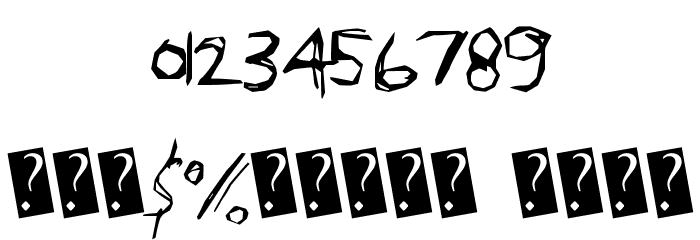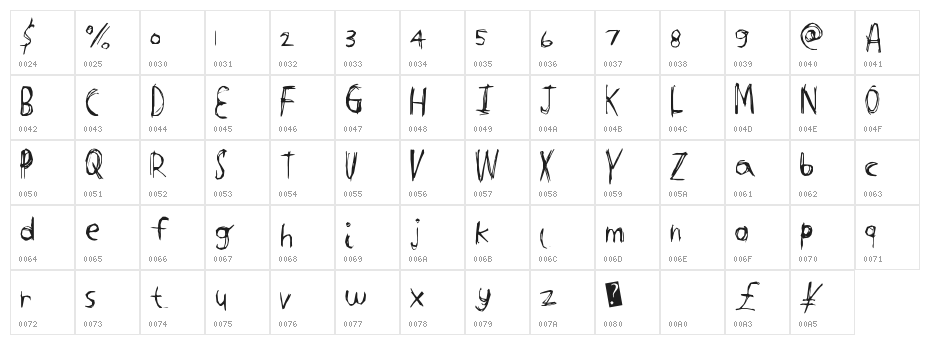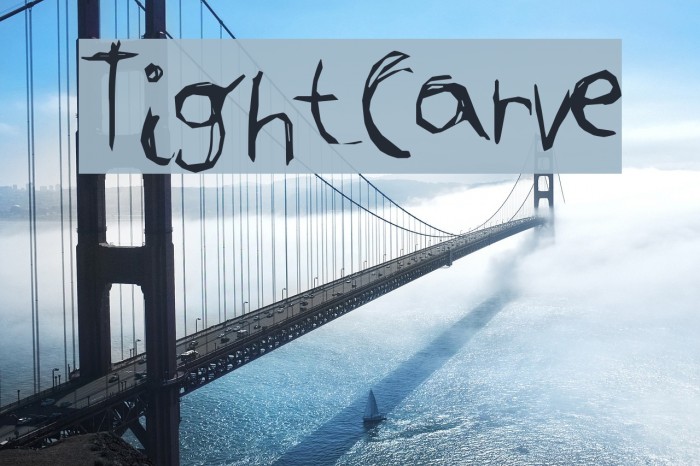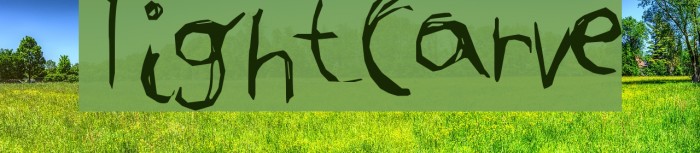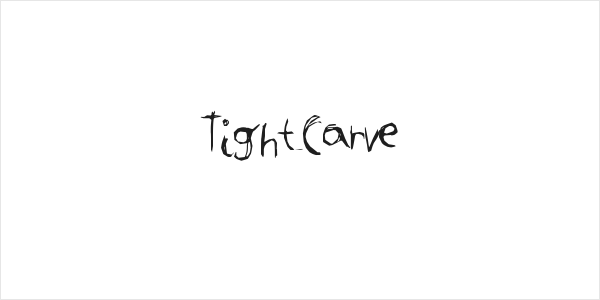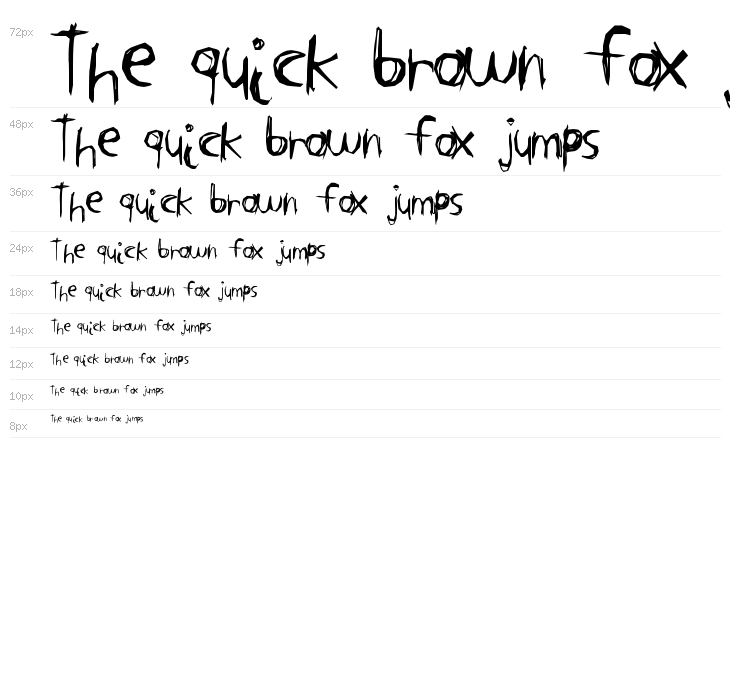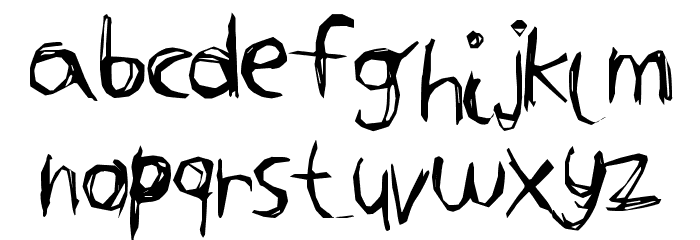
TightCarve Font
TightCarve Description
This font features an edgy, hand-drawn style with a rough, jagged appearance. The characters are unevenly shaped, giving them a raw and dynamic look. The uppercase letters are tall and narrow, while the lowercase letters maintain a consistent height, adding to the font's unique character. The numbers and special characters follow the same rugged aesthetic, making them stand out with their bold, expressive lines. This font's irregular strokes and sharp angles create a sense of movement and energy, making it ideal for projects that require a bold and unconventional look.
| Overall Style | Edgy, Raw, Dynamic |
| Proposed Projects | Ideal for album covers, horror movie posters, edgy branding, and graffiti-inspired designs. |